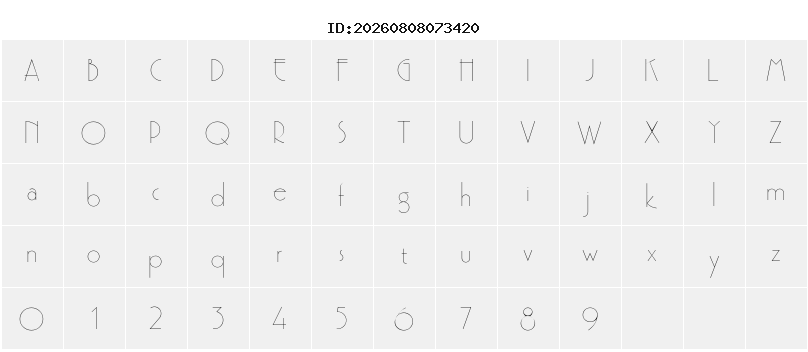
About PremiumThin.ttf
PremiumThin.ttf is a modern, elegant sans-serif font designed for ultimate readability and visual harmony. Perfect for branding, headlines, web design, and print materials.